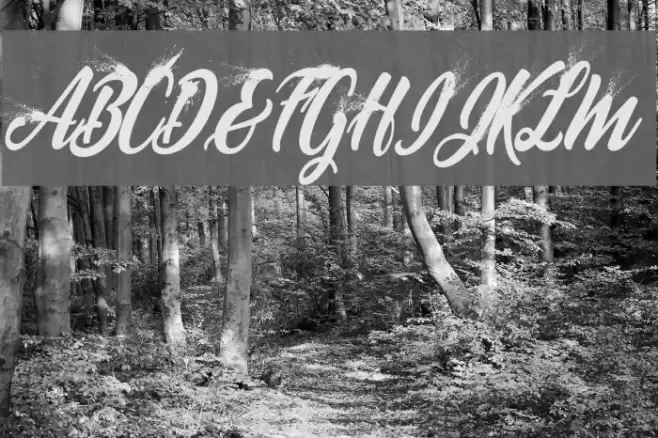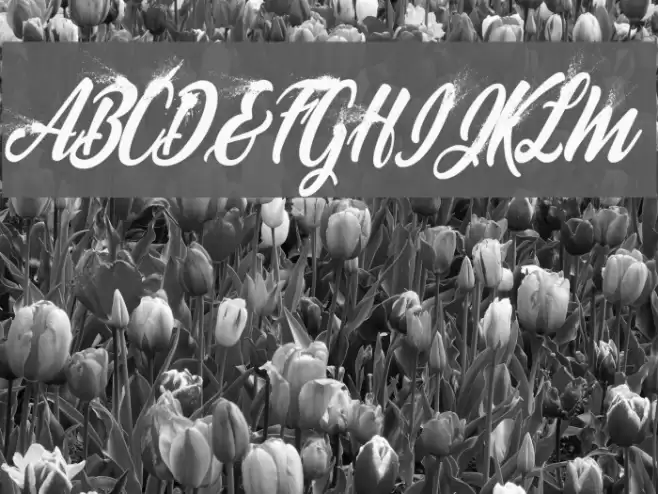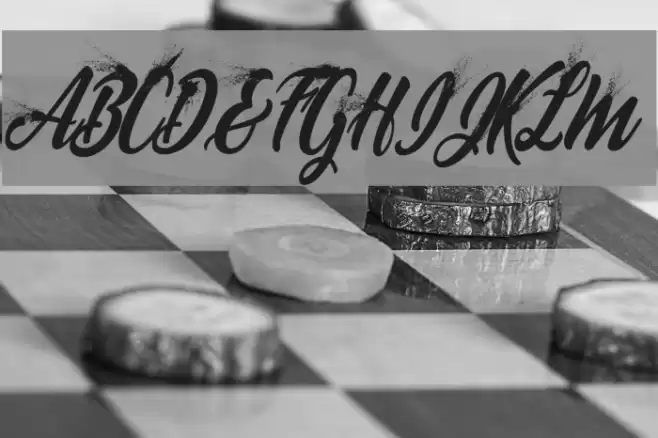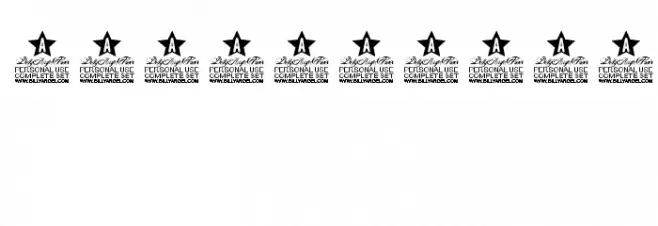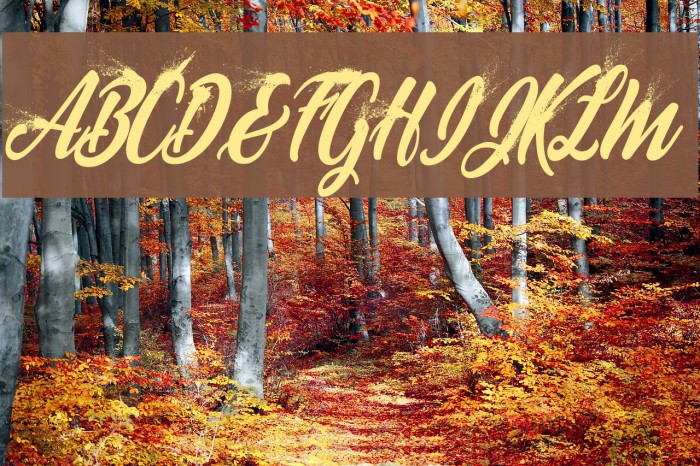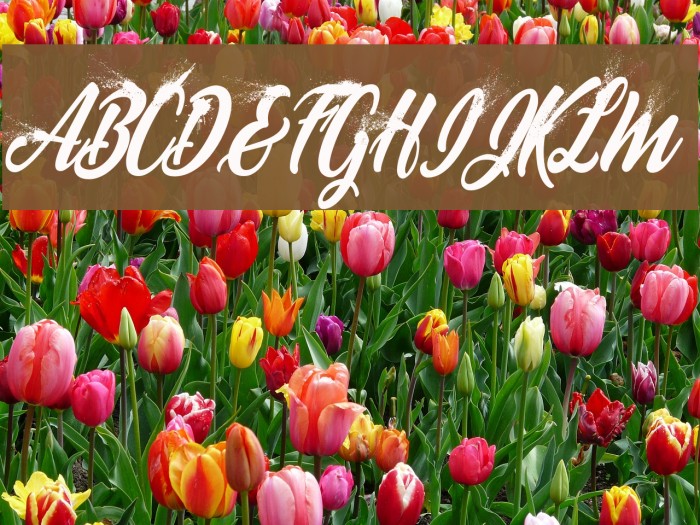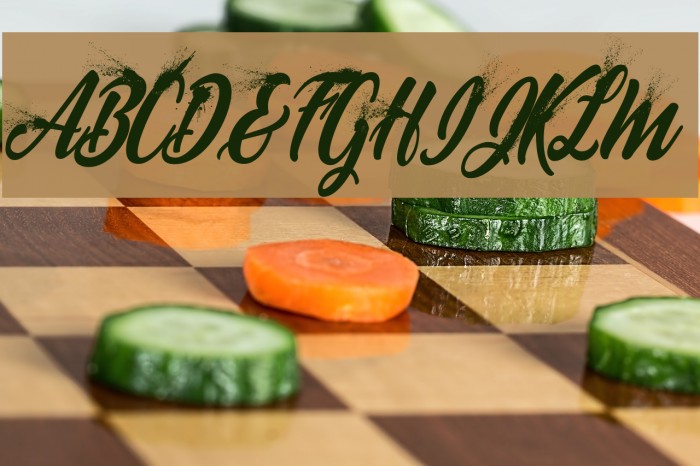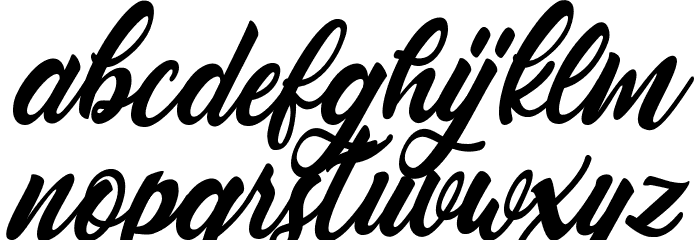
BLOWUP PERSONAL USE Regular Font
BLOWUP PERSONAL USE Regular Description
This font features a bold and expressive script style with a dynamic, flowing appearance. The letters are interconnected, creating a sense of movement and fluidity. The strokes are thick and consistent, with a slight slant that adds to the handwritten feel. The uppercase letters are particularly striking, with elaborate loops and curves, while the lowercase letters maintain a more subdued elegance. The overall design is reminiscent of graffiti or street art, with a modern twist that makes it suitable for eye-catching designs.
A bold, expressive script font with a dynamic, flowing style from Uncategorized fonts.
- Character Spacing: Tight
- Overall Style: Modern, Decorative